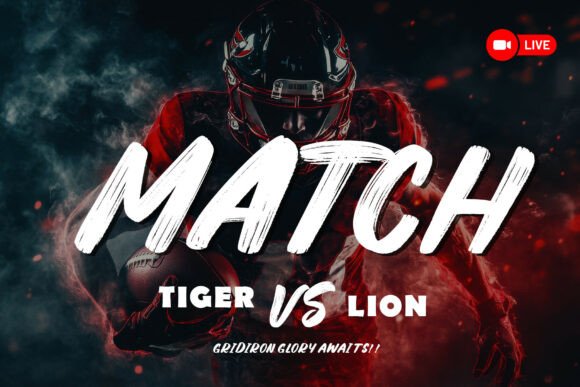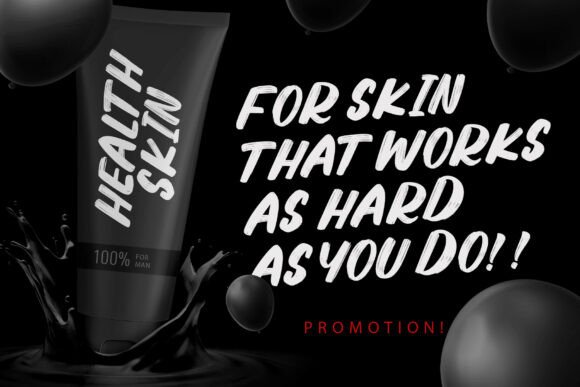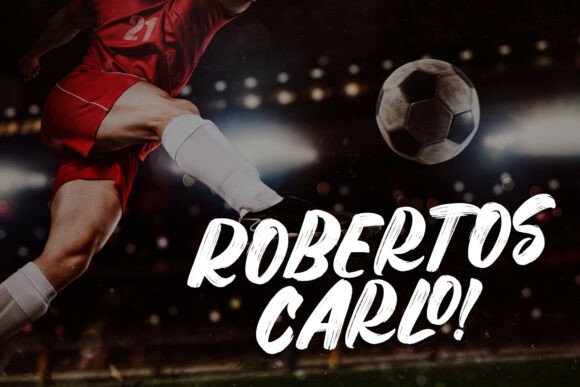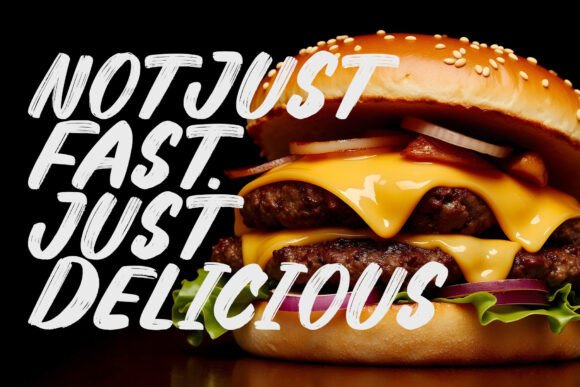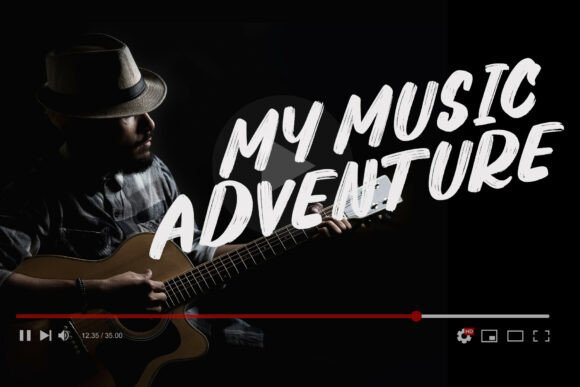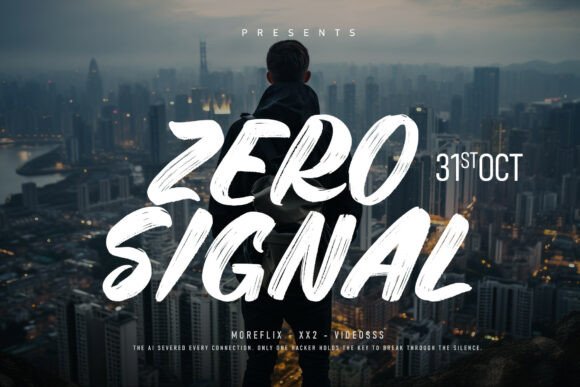
Introducing Brokster: The Bold Brush Font for Rebels and Creatives
Are you tired of using the same old fonts that lack edge and personality? Look no further than Brokster, a bold brush font that’s born from raw grit and wild rebellion. This font is not for the faint of heart – it’s for those who dare to be different, who crave a visual identity that’s loud, raw, and unapologetically bold.
The Birth of Brokster
Brokster is more than just a font – it’s a statement. Every stroke of Brokster carries the energy of unfiltered expression, blending hand-drawn chaos with powerful design intent. Its rough textures and unpredictable flow deliver a rebellious vibe that’s perfect for those who want to make a lasting impression.
Perfect for Bold and Edgy Designs
Brokster is ideal for a variety of design projects, including streetwear, music covers, bold logos, action-packed posters, and branding that craves edge and impact. Whether you’re a designer, artist, or crafty DIY enthusiast, Brokster gives you the creative freedom to shape a visual identity that’s truly one-of-a-kind.
Key Features of Brokster
- Bold and Edgy: Brokster’s rough textures and unpredictable flow make it perfect for designs that require a bold and edgy look.
- Hand-Drawn Chaos: Each stroke of Brokster is hand-drawn, giving it a unique and organic feel.
- PUA Encoding: Brokster is fully equipped with PUA encoding, making it easy to access and use.
- Alternates: With a range of alternates, you can mix and match different styles to create a truly unique look.
Unleash Your Creativity with Brokster
Brokster doesn’t whisper – it shouts, roars, and breaks through the noise. This font is designed to help you stand out from the crowd and make a lasting impression. Whether you’re creating a bold logo, designing a music cover, or crafting a statement piece of art, Brokster gives you the creative freedom to push boundaries and break the rules.
Who is Brokster for?
Brokster is perfect for:
- Designers: Graphic designers, typographers, and branding experts who want to create bold and edgy designs.
- Artists: Artists, illustrators, and sketchers who want to add a raw and unfiltered touch to their work.
- Crafty DIY Enthusiasts: Crafters, scrapbookers, and DIY enthusiasts who want to add a personal touch to their projects.
Get Ready to Break the Rules with Brokster
Ready to unleash your creativity and make a statement? Brokster leads the charge. With its bold and edgy design, Brokster is the perfect font for those who want to push boundaries and take risks. So why settle for a boring, generic font when you can make a statement with Brokster?
In conclusion, Brokster is more than just a font – it’s a movement. It’s a call to arms for those who want to break free from the norm and create something truly unique. With its bold and edgy design, Brokster is perfect for designers, artists, and crafty DIY enthusiasts who want to make a lasting impression. So what are you waiting for? Join the rebellion and get ready to make a statement with Brokster.